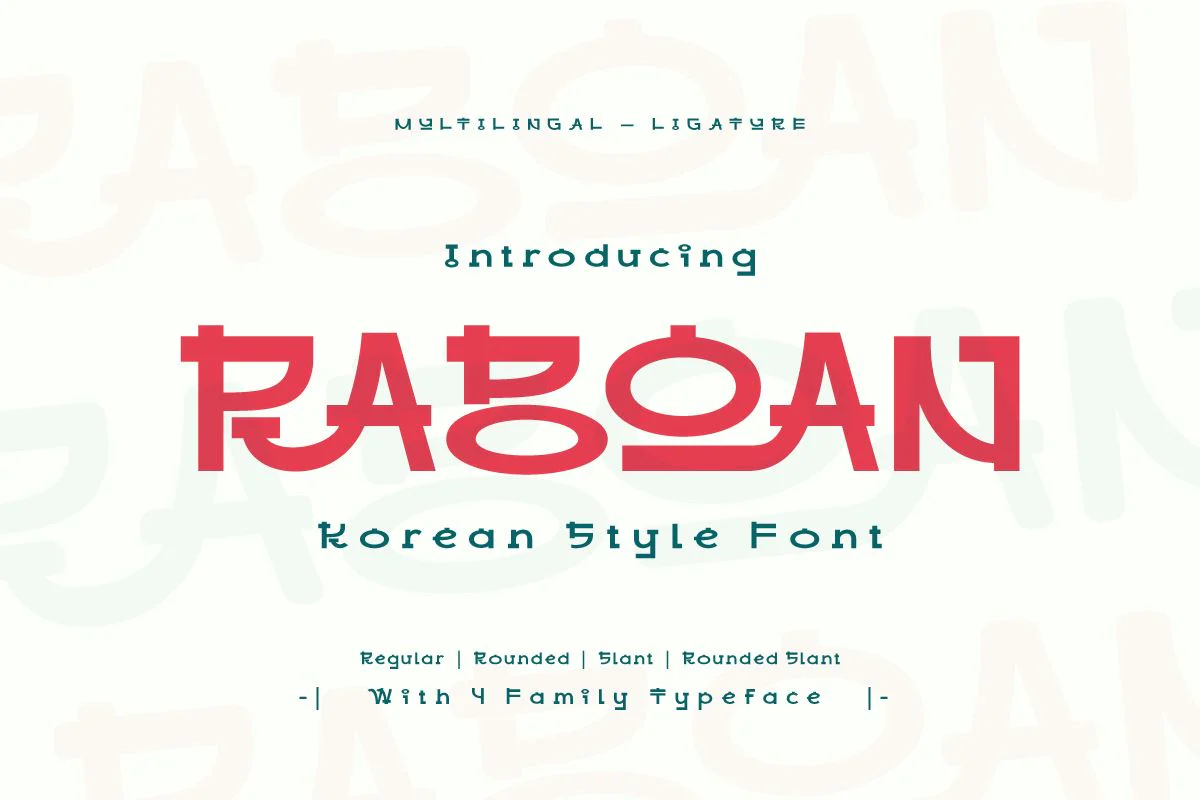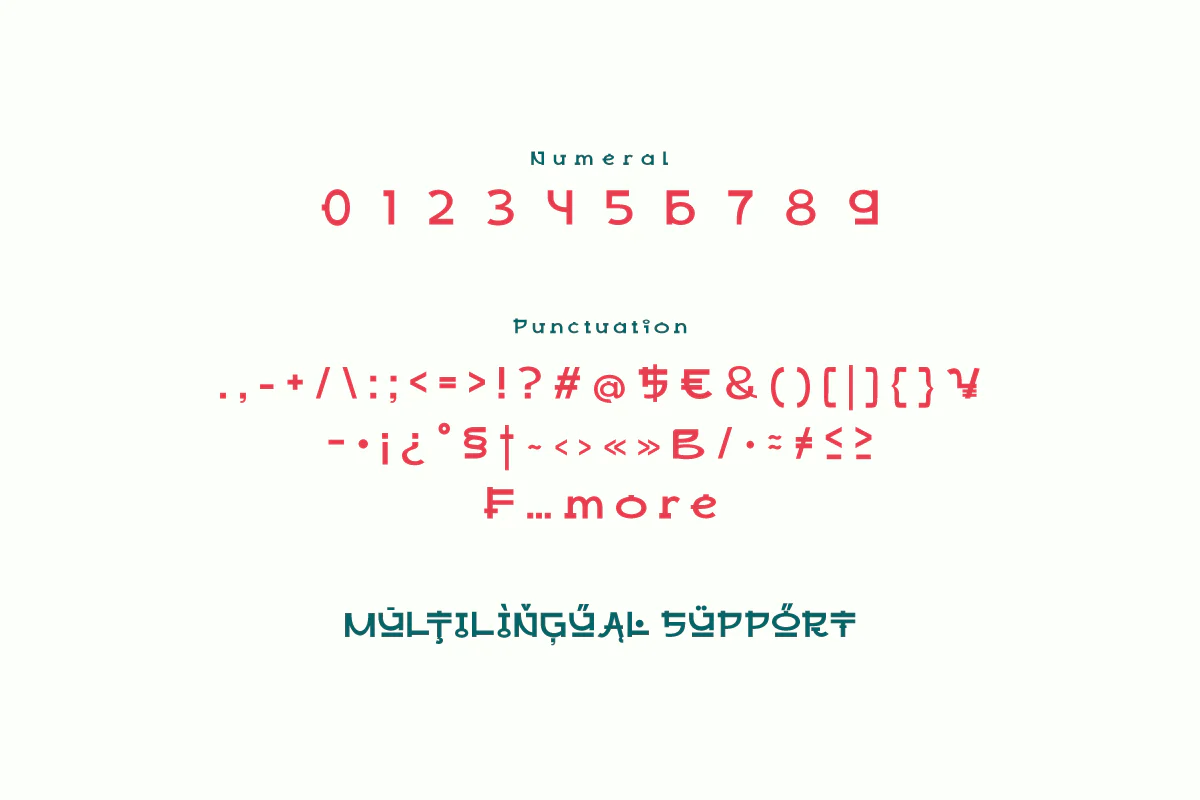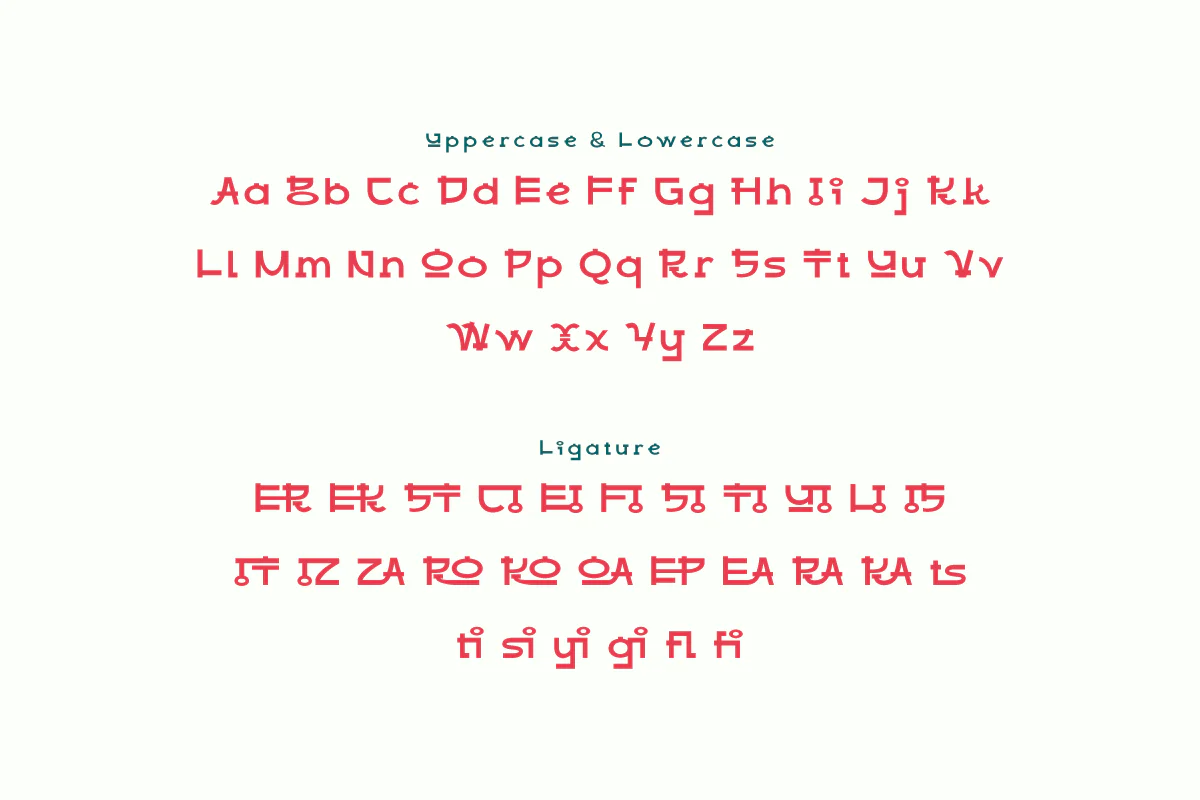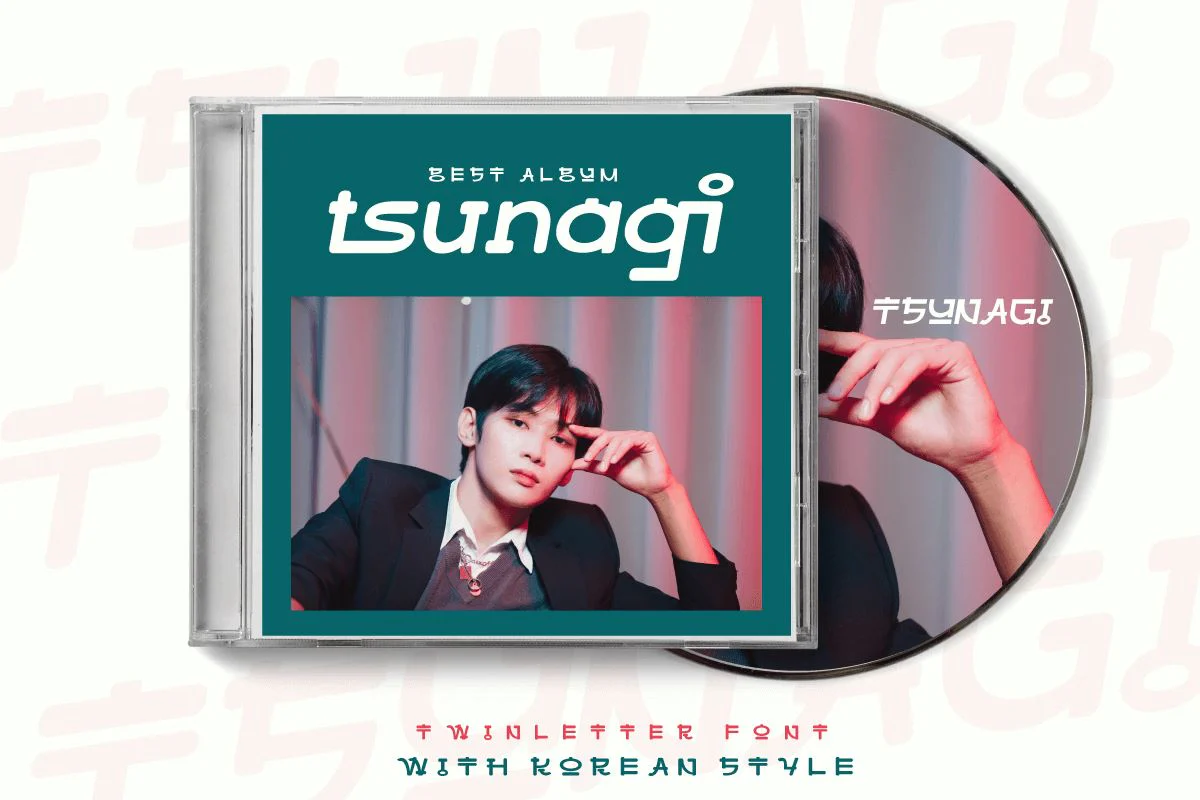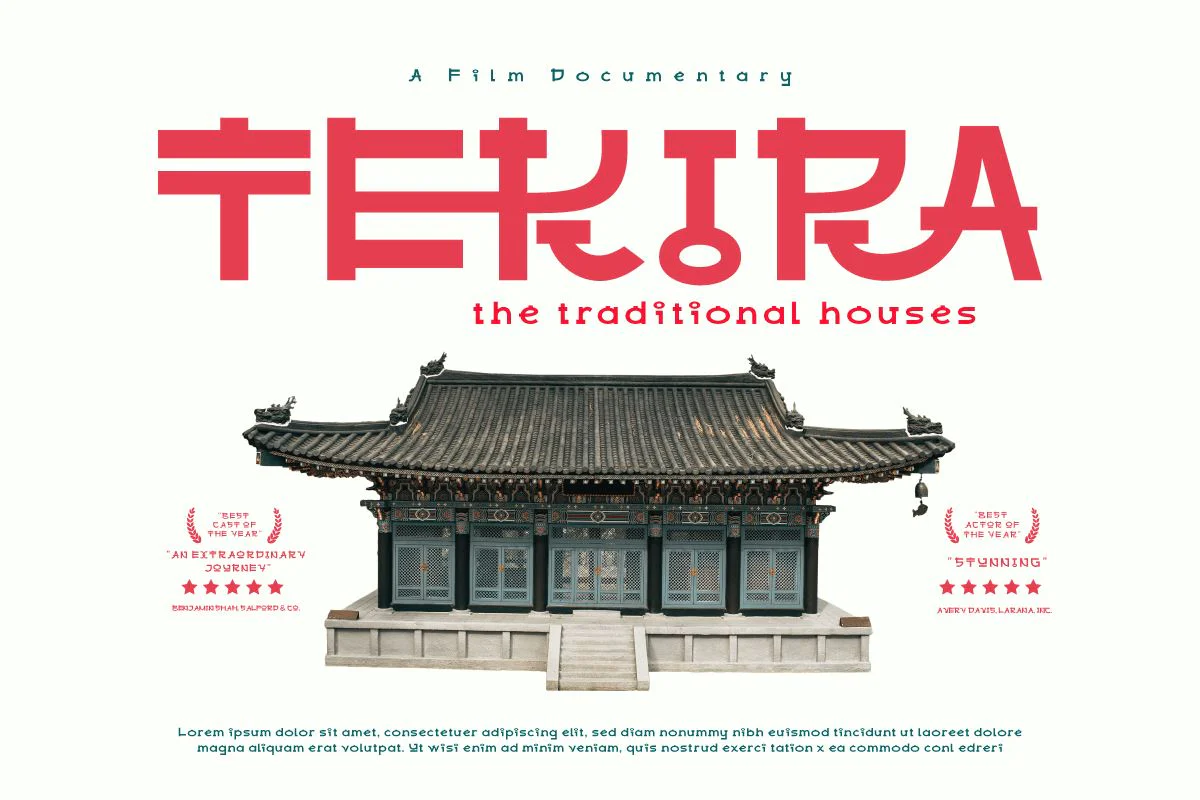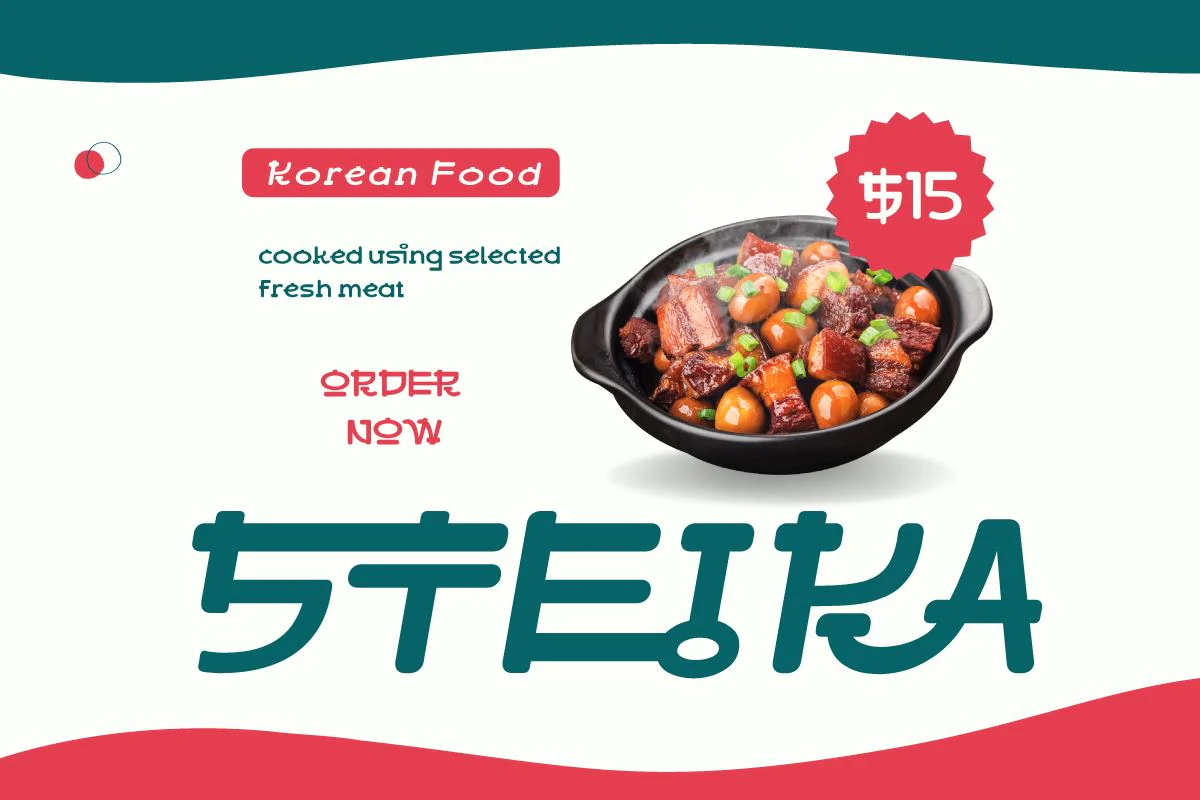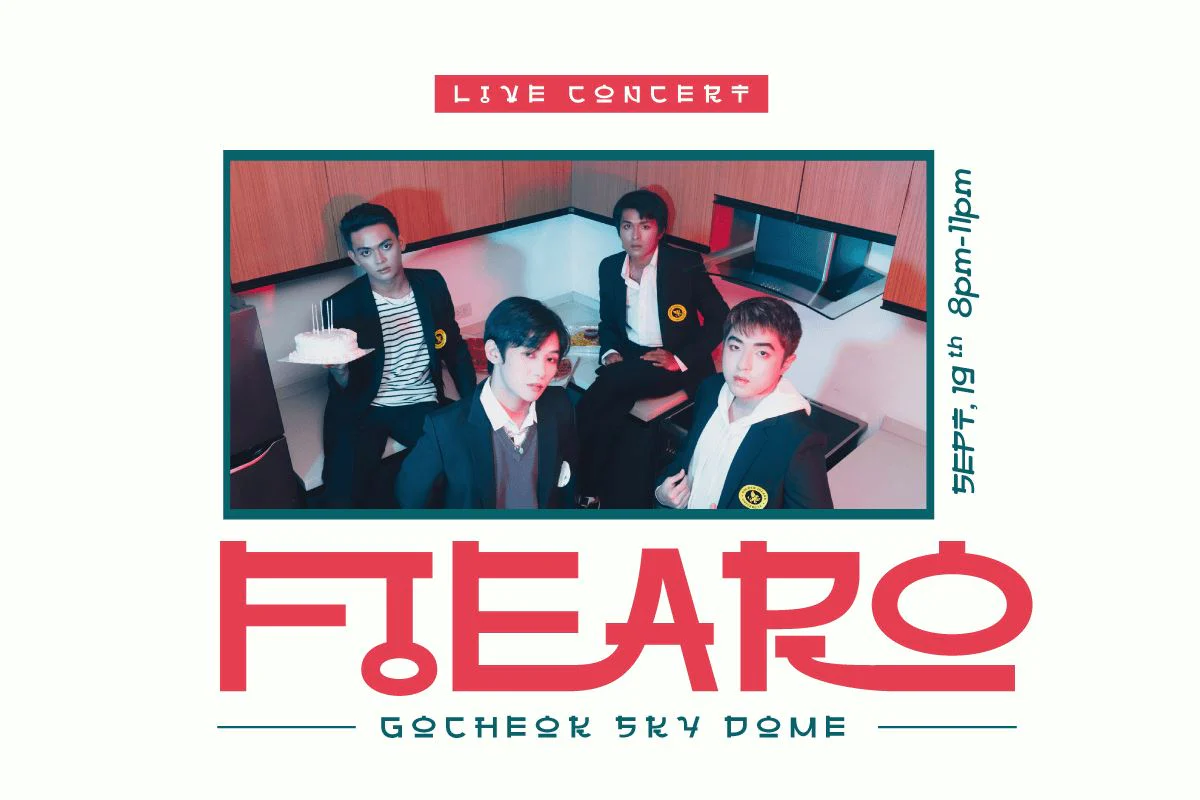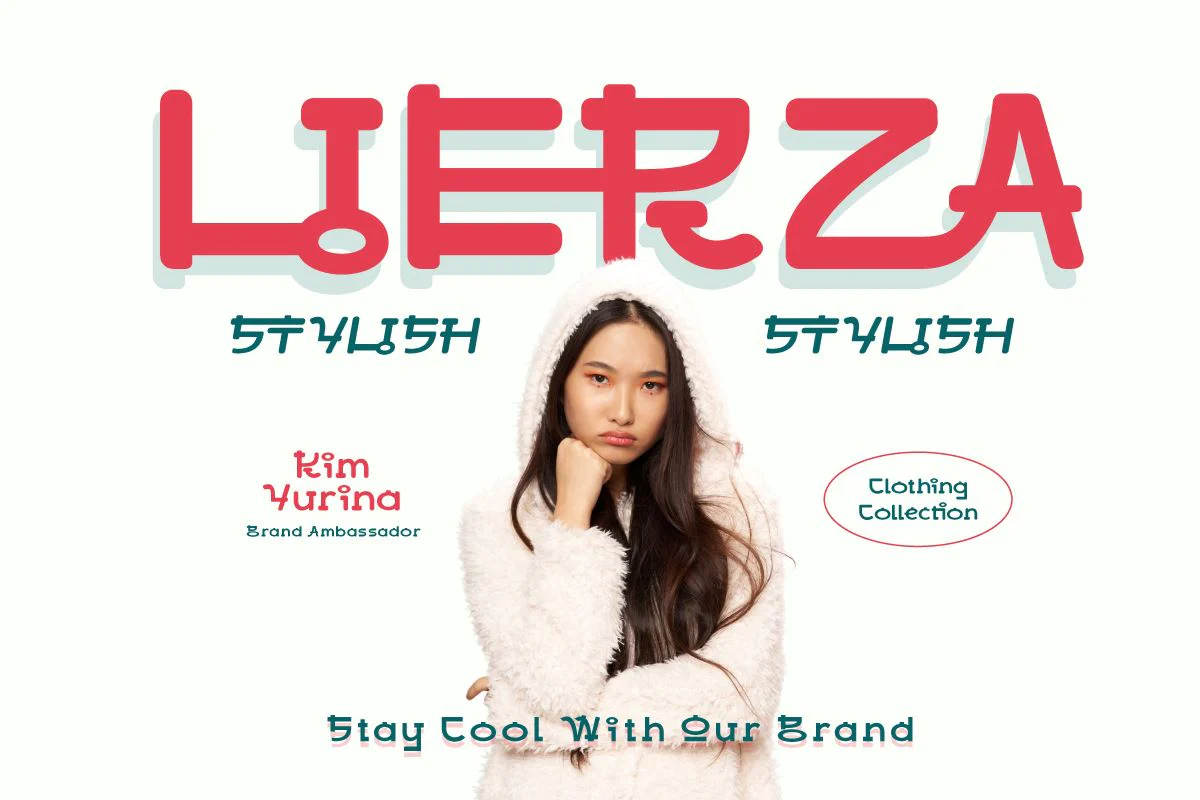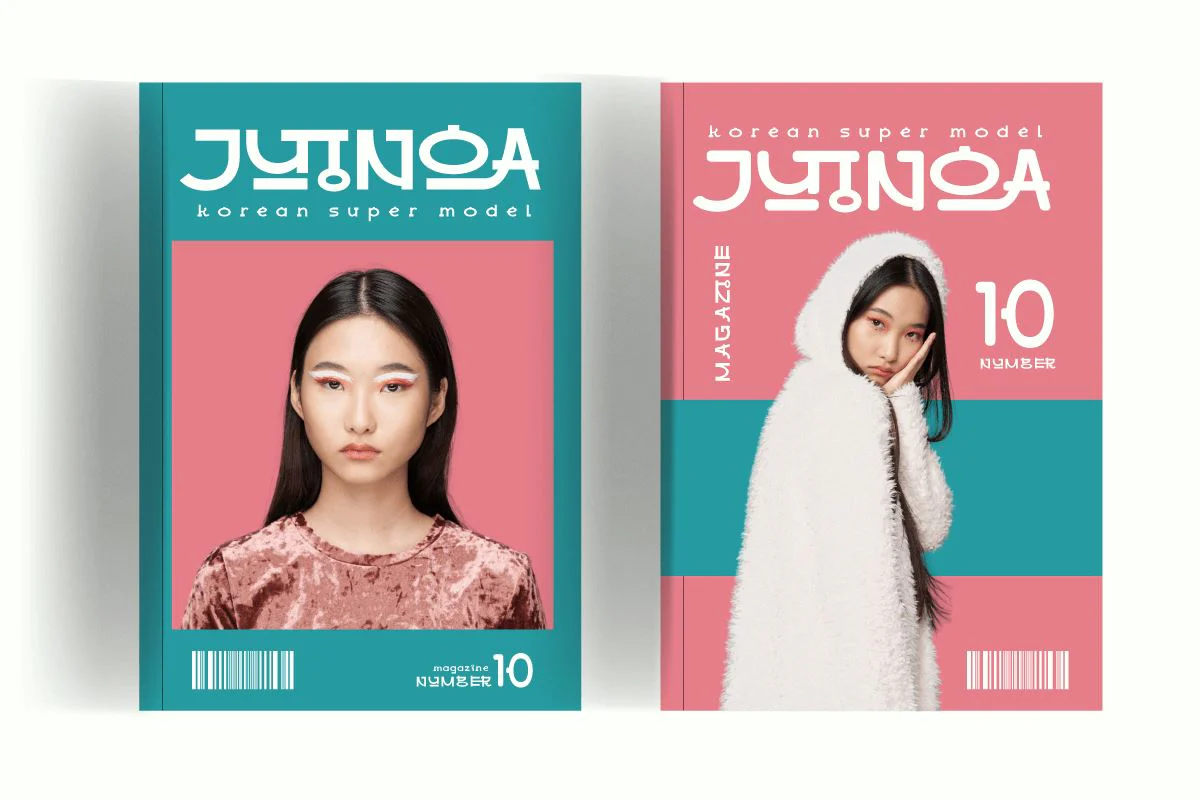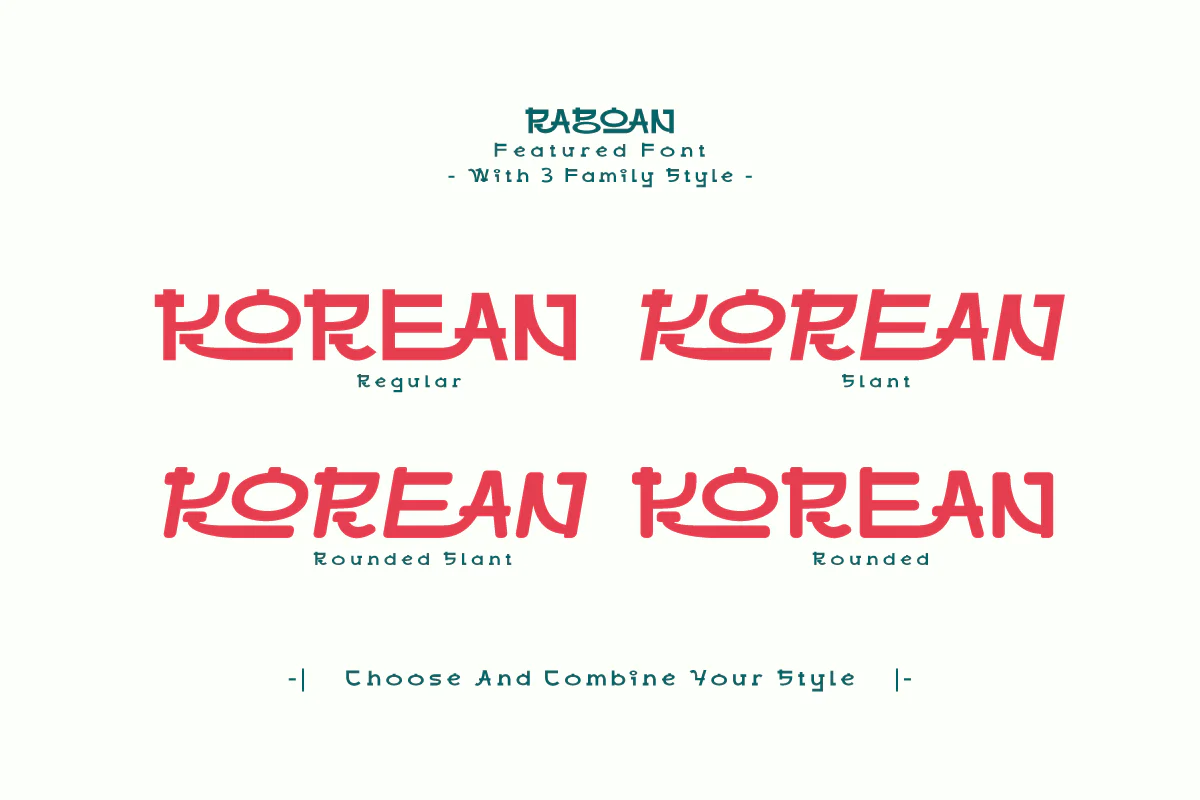
Raboan - Korean Style Font
Raboan is a Korean font that exudes beauty and softness in every curve of its letters. With warm traditional touches and elegant modernity, Raboan takes you on a fascinating journey through Korea's rich and beautiful culture. Each Raboan letter carries a message that is easy to understand and appreciate, creating a calm and enchanting atmosphere. Suitable for a variety of design projects, from branding, and logo typography, to special events, this font is an ideal choice to bring Korean elegance to your work. Raboan's excellence lies in his ability to convey Korean tenderness and charm with clarity and decisiveness. Its easy-to-understand design makes it very suitable for use in various design contexts. With Raboan, let Korean beauty creep into your every design. Let this font be a representation of the warmth and beauty of Korean culture, providing a mesmerizing and inspiring touch to anyone who sees it. What’s Included: - File font OTF, TTF, WOFF, WOFF2, CSS, HTML - All glyphs and variation - We highly recommend using a program that supports OpenType features and Glyphs panels like many Adobe apps and Corel Draw so that you can see and access all Glyph variations. - PUA Encoded Characters – Fully accessible without additional design software. - Fonts include Multilingual support